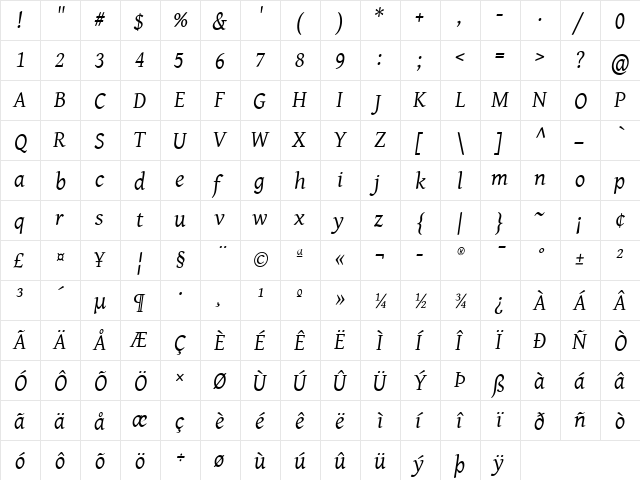
GentiumAlt Italic
| Designer | J. Victor Gaultney |
Design Context for GentiumAlt Typeface
GentiumAlt offers clean, dependable letterforms without strong stylistic allegiance, making it a practical choice for designers who need flexibility. Its italic angle brings a sense of urgency and motion to the letterforms.
Pro Tip: Try GentiumAlt for annotation and caption copy alongside an upright companion — the contrast in angle creates a dynamic but ordered typographic system.